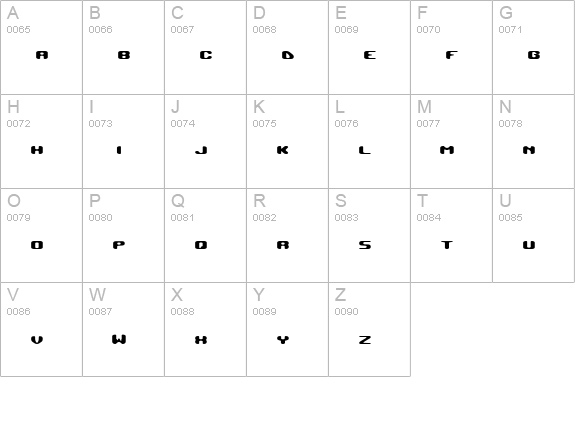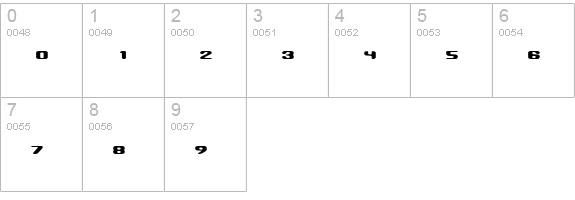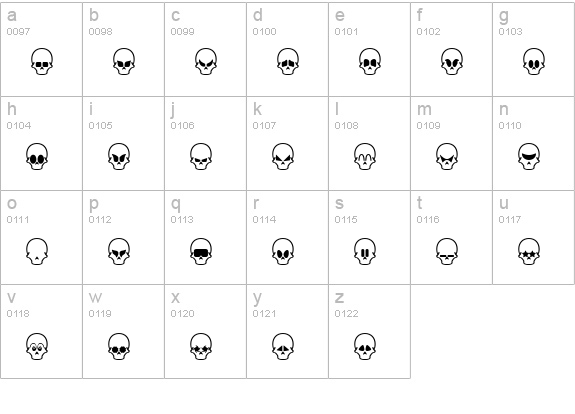
Skull Capz (BRK) Font Details
Skull Capz (BRK) font is a bold and edgy typeface that captures the essence of urban street style. With its distinct skull-inspired design, this font is perfect for adding a touch of rebelliousness and attitude to your projects. Whether you're working on a poster, logo, or any other creative endeavor, Skull Capz (BRK) font will make a bold statement. What makes this font even more appealing is that it is free to download at FontsMarket.com. Yes, you read that right - this high-quality font is available for free! FontsMarket.com is a trusted source for fonts, and they have generously made Skull Capz (BRK) font freely accessible to everyone. With its sharp and eye-catching letterforms, Skull Capz (BRK) font is ideal for capturing attention and creating memorable designs. Its versatility allows it to be used in a wide range of projects, from graphic design to apparel branding. So, if you're looking to add a touch of urban style and rebelliousness to your designs, look no further than Skull Capz (BRK) font. And the best part? You can download it for free at FontsMarket.com. Don't miss out on this incredible opportunity to enhance your creative projects with this unique and captivating font.